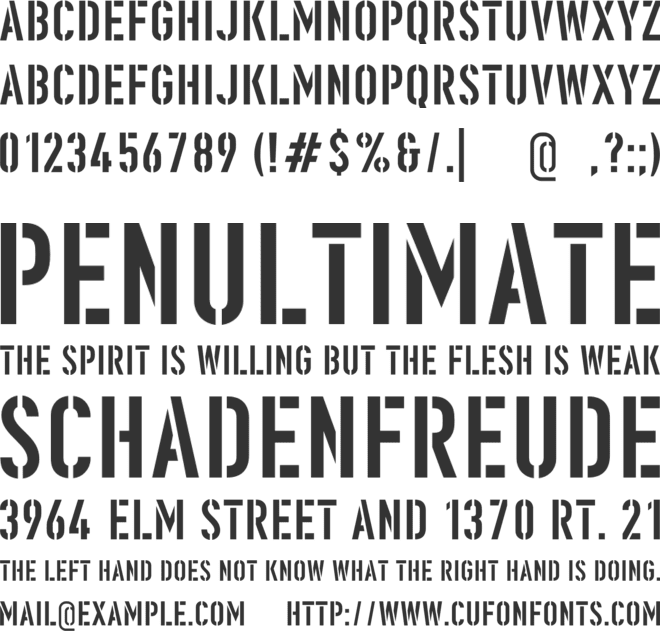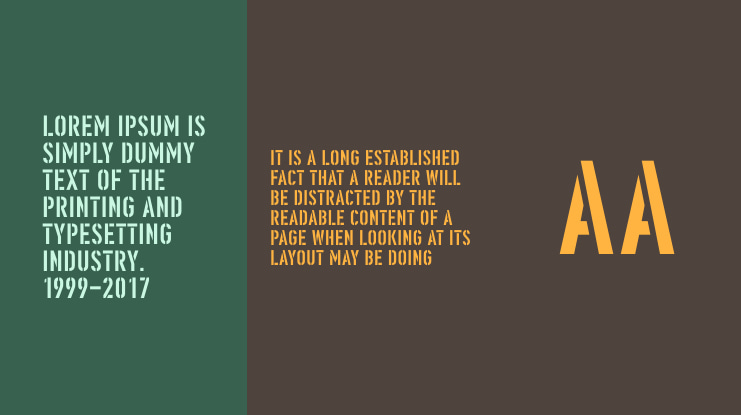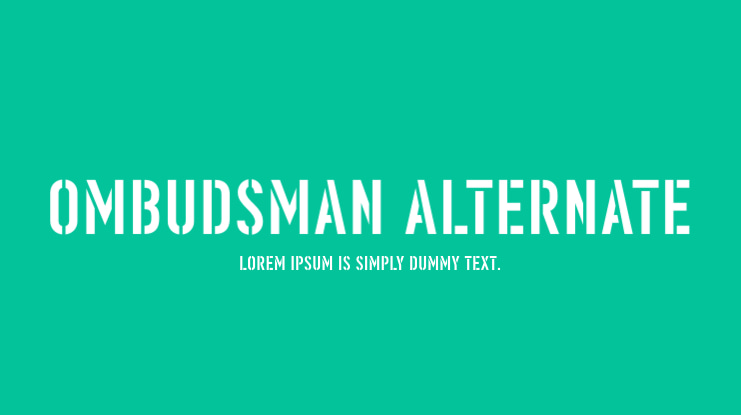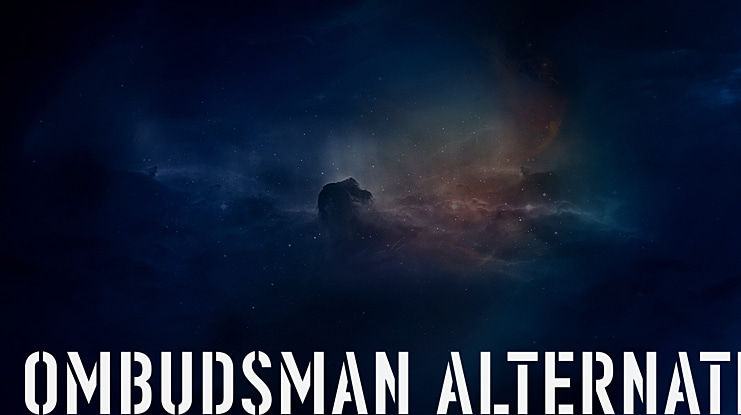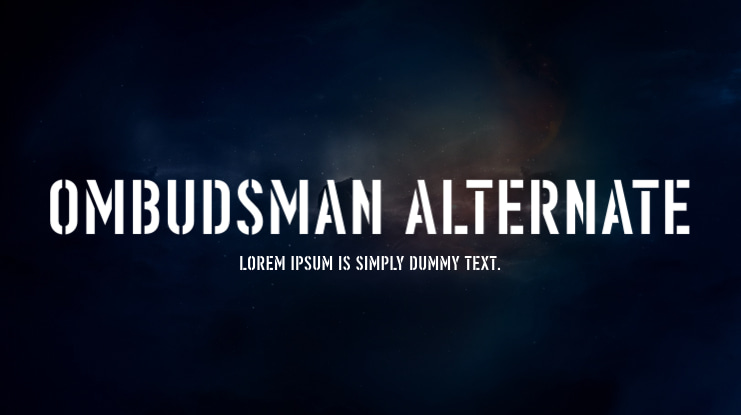
Ombudsman Alternate Font
HENRIavecunK
A new version of my popular font Ombudsman Stencil. This version is a bit wider with larger gaps between the letter parts.